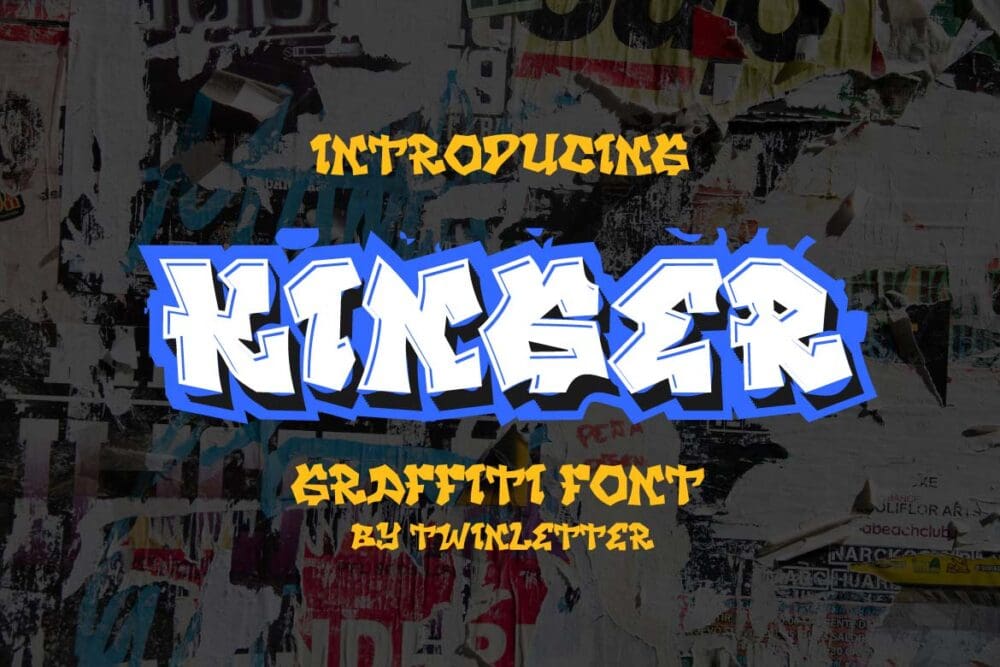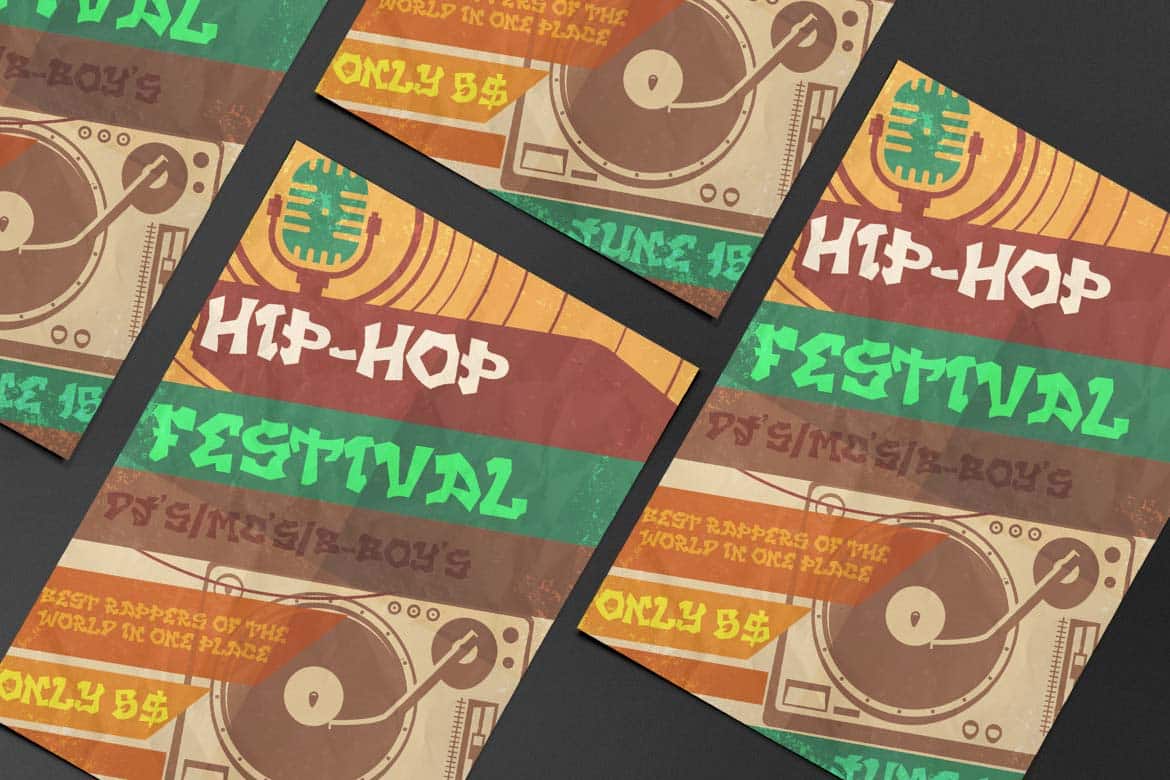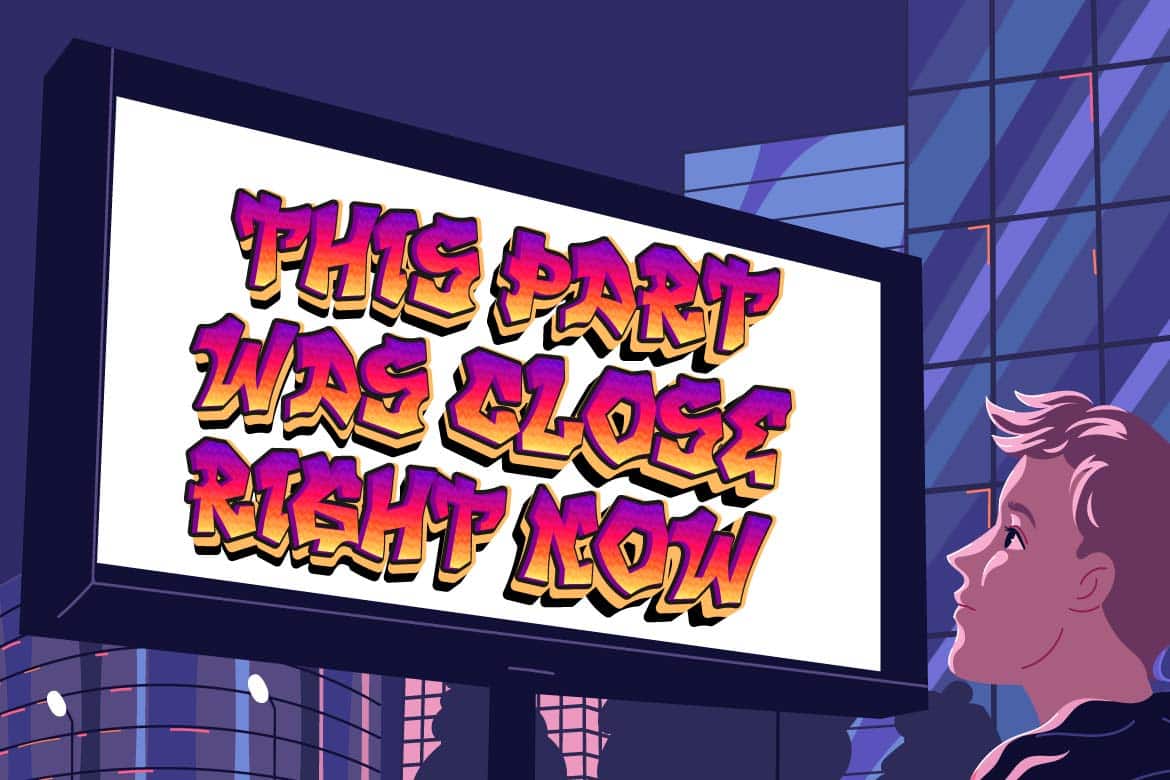
Kinger Font
We designed Kinger as a display font with the notion of excellent graffiti writing in mind. We have polished Kinger into a typeface that is ideal for use in a variety of projects since when you use this font, your complete project will appear more beautiful and pleasant in the eyes of many people.